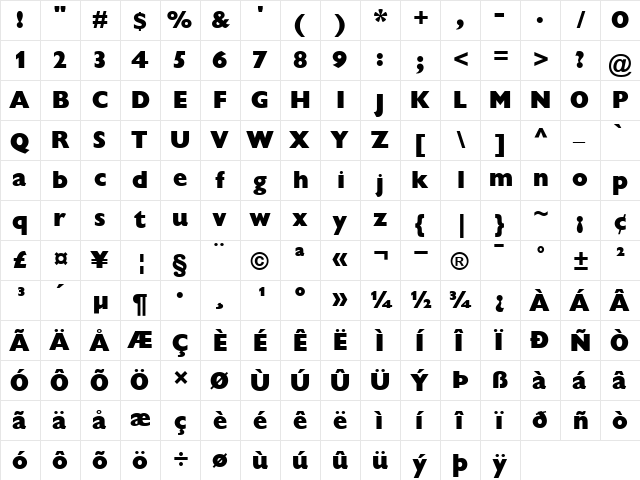
GillSansDisplay-ExtraBold Extra Bold
Design Context for GillSansDisplay-ExtraBold Typeface
GillSansDisplay-ExtraBold is built around its visual character rather than neutral utility — its distinctive forms are designed to make an impression at display sizes. The heavy weight commands attention and anchors typographic hierarchies.
Font Pairing: Pair with a clean neutral sans-serif for body copy to let GillSansDisplay-ExtraBold's character lead without overwhelming the composition.
Pro Tip: Use GillSansDisplay-ExtraBold exclusively at display sizes — it was designed to be seen, not read at length. Let a neutral companion handle body copy.